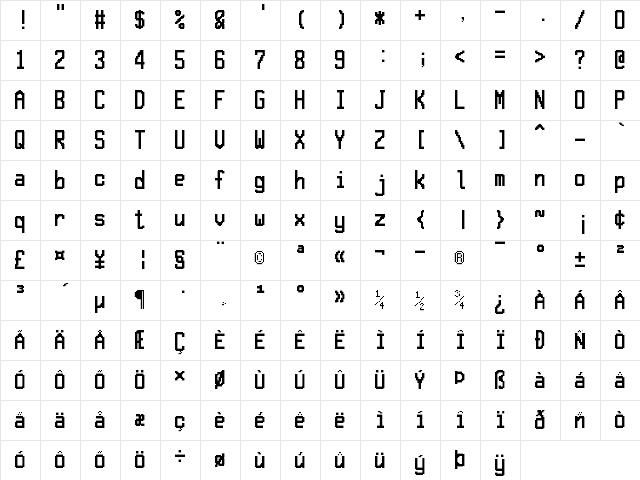
16x8Pxl_Mono Regular
| Designer | corne2plum3 |
Design Context for 16x8Pxl_Mono Typeface
16x8Pxl_Mono brings the precise, column-aligned rhythm of monospaced typography to designs that value technical clarity and systematic order.